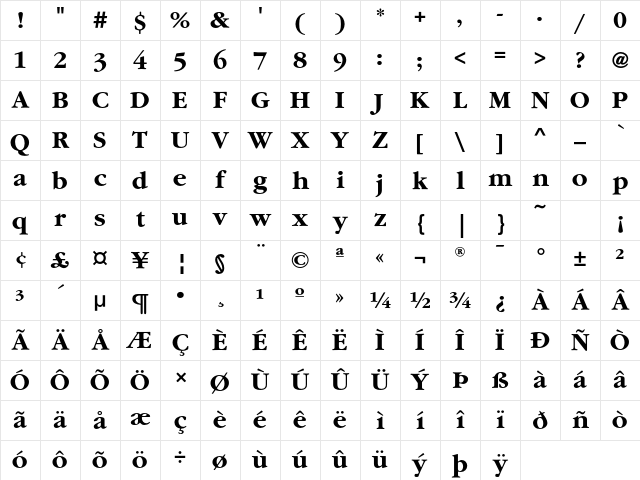
GaramondEF Bold
Design Context for GaramondEF
GaramondEF is a composed and adaptable typeface that performs quietly and consistently across a wide range of design contexts. Its bold stroke weight gives it real presence on the page.